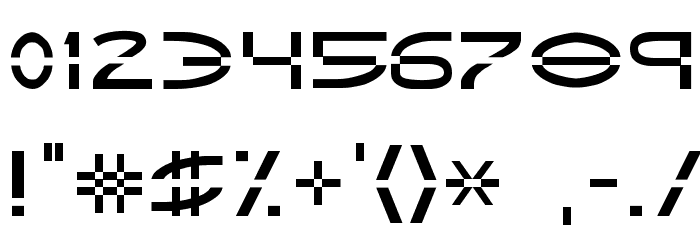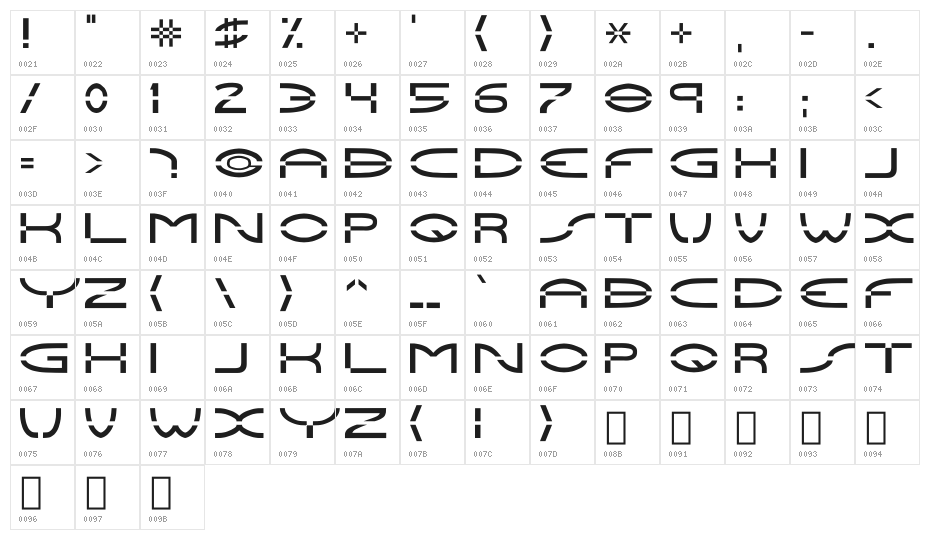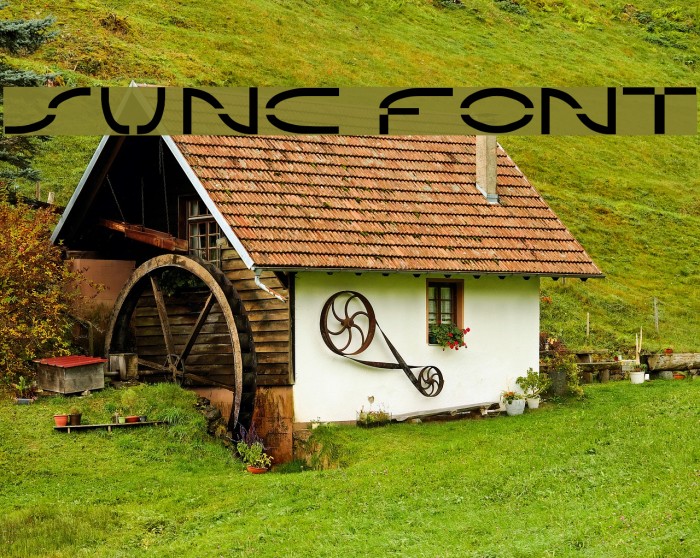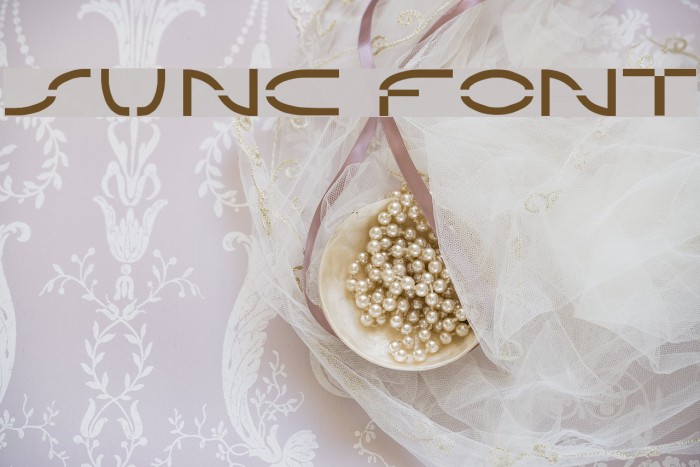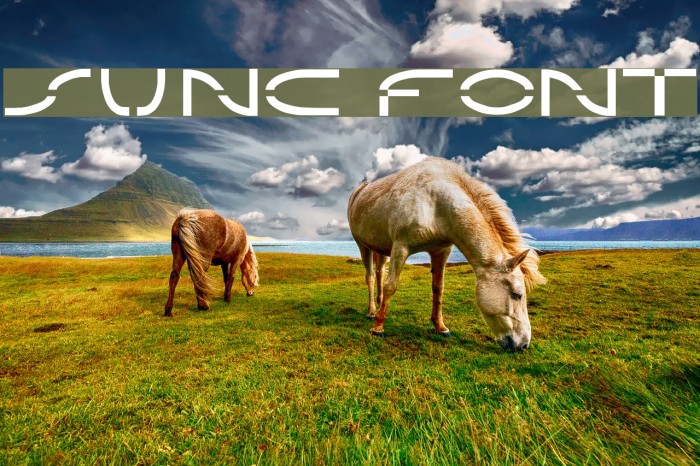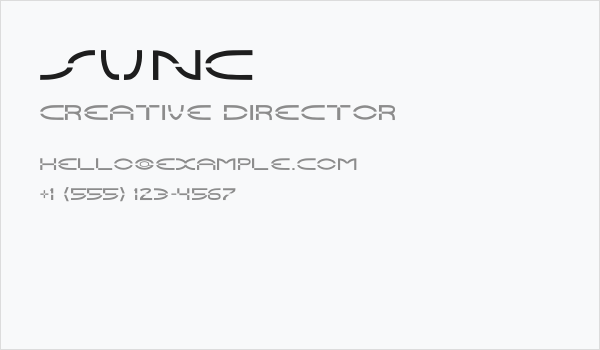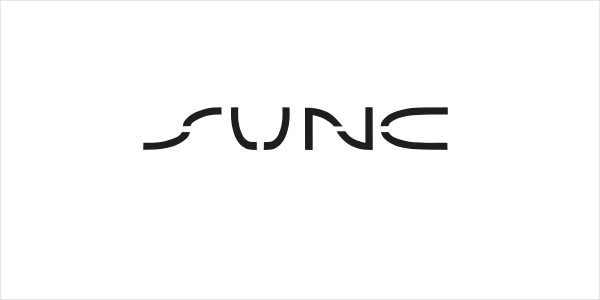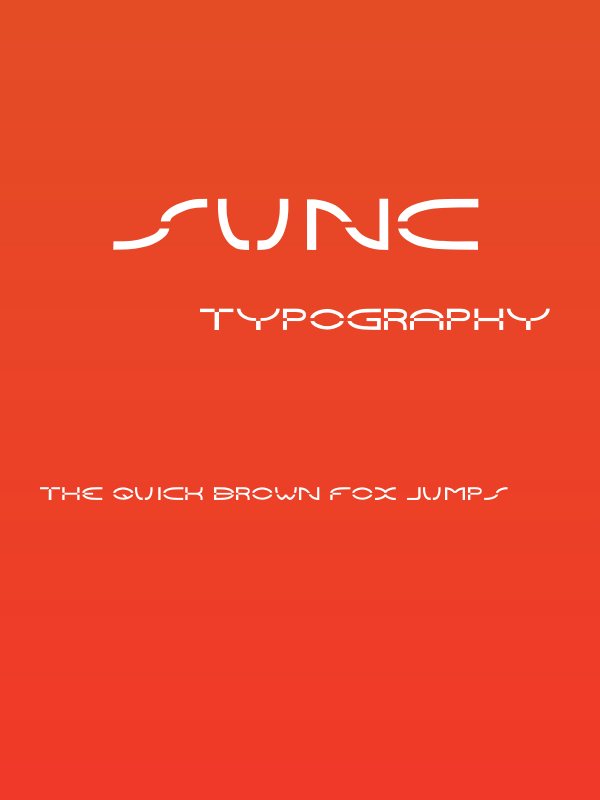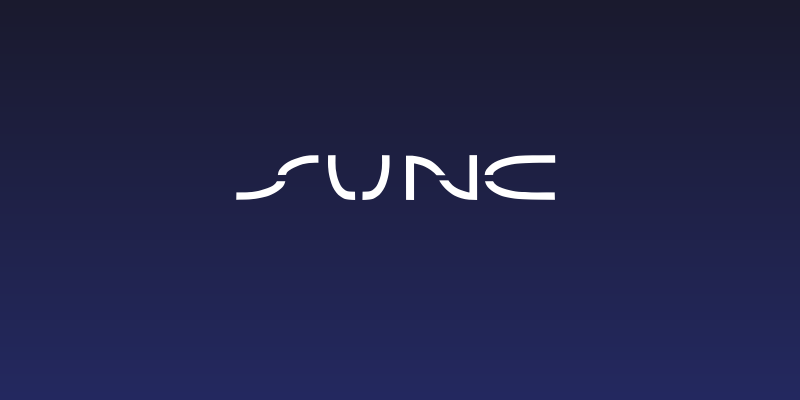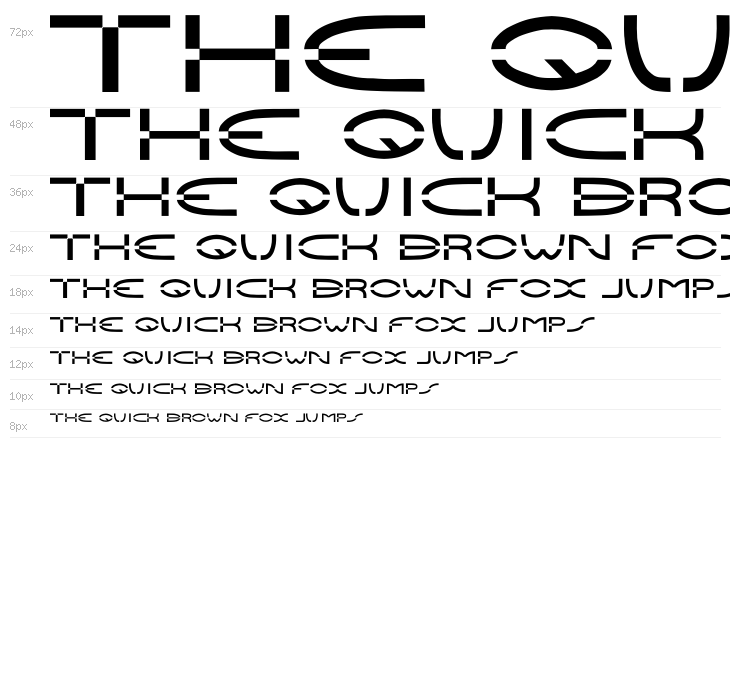
Sunc Font
Sunc Description
This font features a futuristic and geometric design, characterized by its unique cut-out segments within each character. The uppercase and lowercase letters maintain a consistent style, with a modern and sleek appearance. The numerals and special characters follow the same design principles, ensuring uniformity across all glyphs. The font's distinct style makes it stand out, with a focus on clean lines and minimalistic aesthetics. It is well-suited for projects that require a contemporary and innovative look, such as technology branding or sci-fi themed designs.
| Proposed Projects | Ideal for technology branding, sci-fi themed designs, modern advertising, and innovative product packaging. |